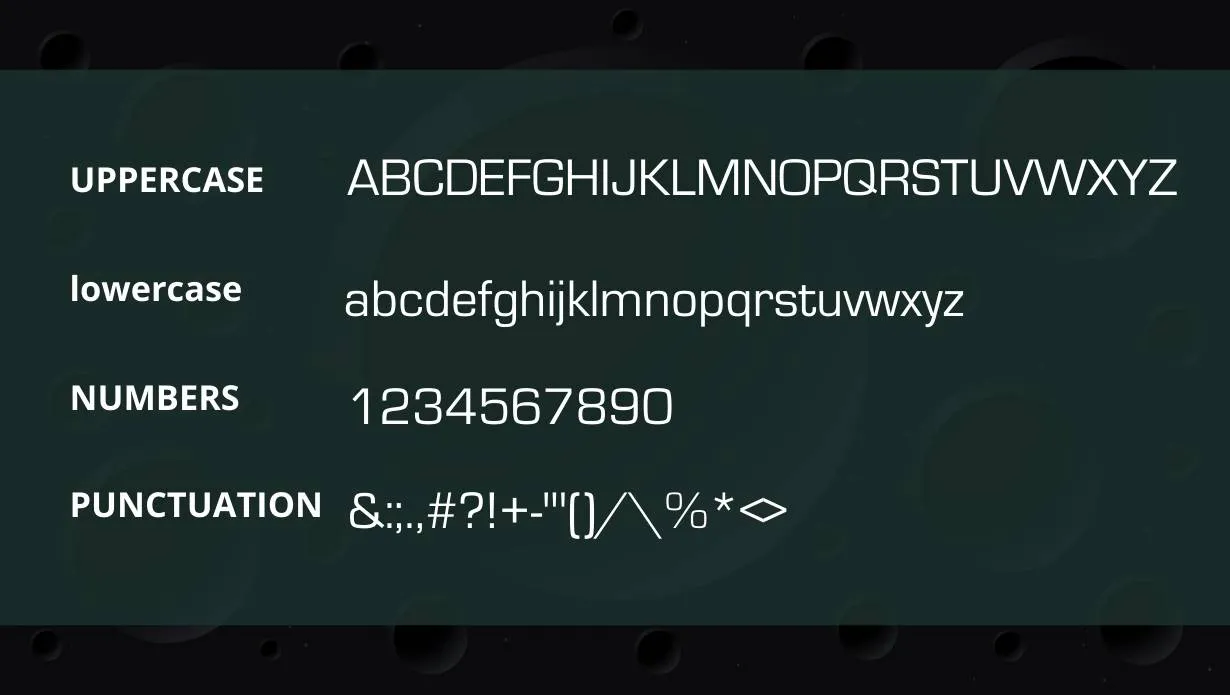
The Eurostile font, created by Aldo Novarese in the 1950s, is a popular sans serif typeface. It is most commonly recognized for its appearance in the logo of Fiat, an Italian car manufacturer. This versatile font has been widely utilized in advertising, packaging, as well as in various movies and television programs.
DesignerAldo Novarese
StyleSans Serif